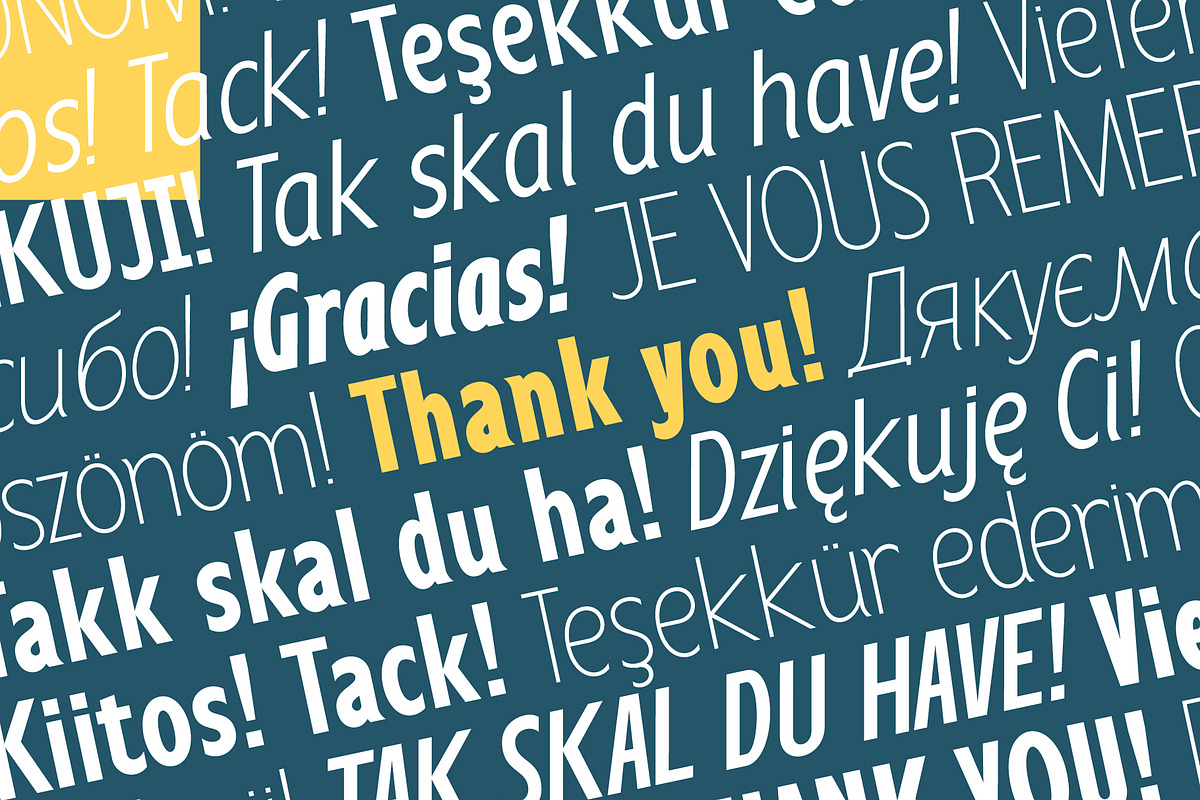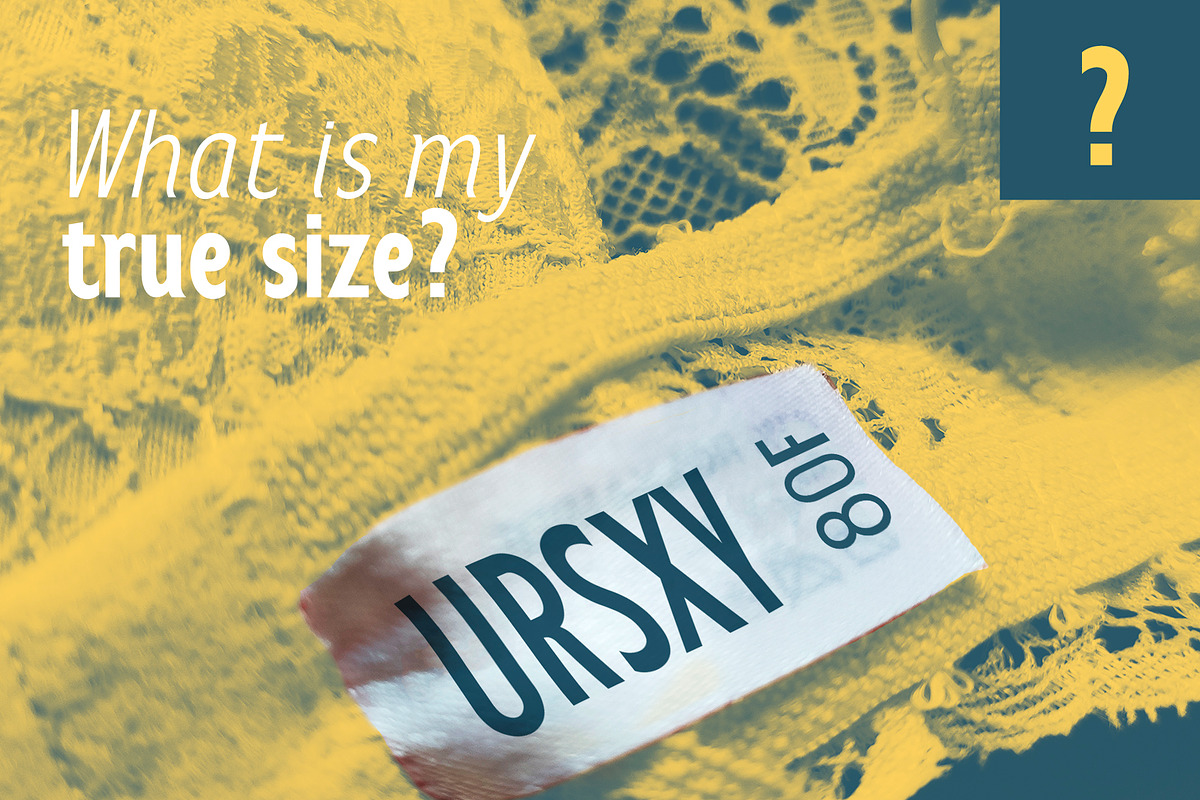
Anicon Sans
Anicon Sans font consist of 6 weight: from Thin to Black with each weight paired by italic. Also including Latin & Cyrillic language support with more than 35 languages.
Anicon is a fonts superfamily, semicondensed sans serif and slab serif with humanistic forms of characters. This font crafted with the intention to present a clean, legible, multipurpose that easy to read wether it on screen or print. Fit for all purposes; text, display, headline, print, corporate identity, logo, branding, product, infographic, photography and other application and medium.